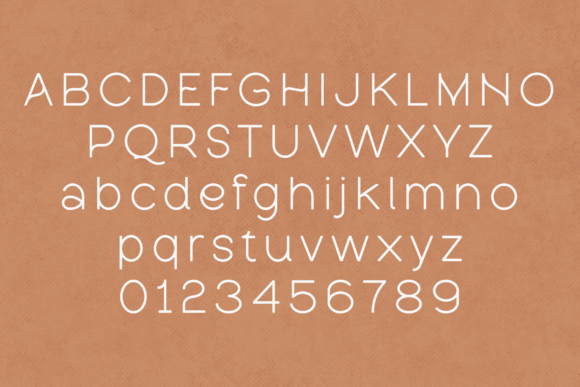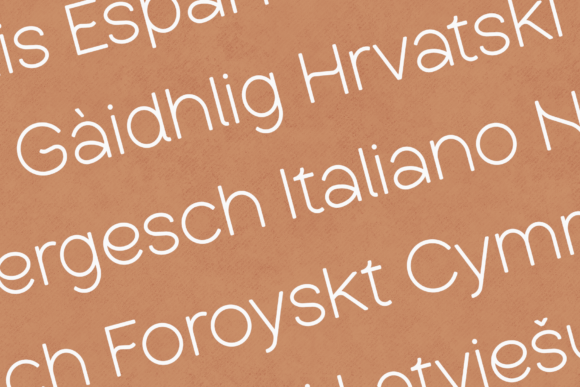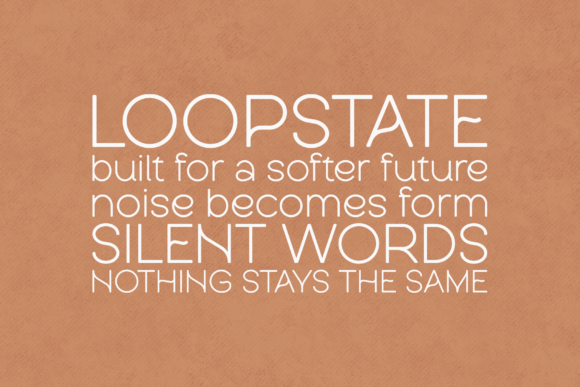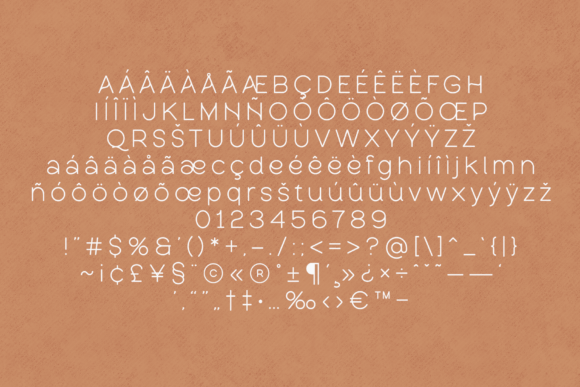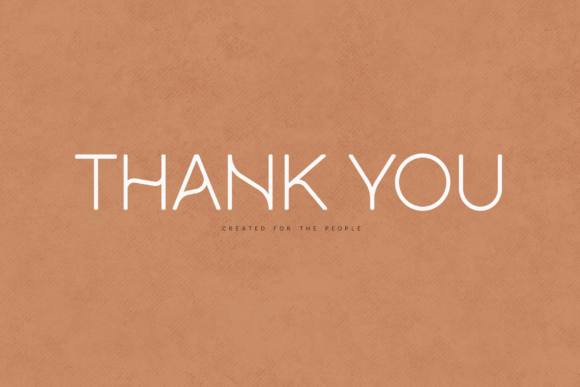
Introduction to Luminova Font
Have you ever been stuck on a creative project, staring at a blank page, and desperately searching for that perfect font to bring your vision to life? That’s exactly where the Luminova Font comes in – a game-changer for designers looking to elevate their work with a touch of sophistication and elegance.
As a valuable design resource, Luminova Font offers a high-quality solution for those seeking a clean and modern aesthetic. Its soft curves and balanced minimal forms make it an excellent choice for contemporary design environments where clarity and personality need to coexist. Whether you’re working on a branding project, modern interface, or editorial layout, Luminova Font is sure to make your creative project shine.
Key Features of Luminova Font
- High-quality, vector-based font design, ideal for use in various creative projects.
- Comes with a transparent background, allowing for seamless integration into any design.
- Includes a large character set, covering multiple languages and providing a comprehensive font solution.
- Designed to be scalable, with high resolution support up to 300 DPI, ensuring crisp and clear text at any size.
- Perfect for use in various design applications, from digital graphics to print materials, and more.
Honest Review: Luminova Font
As a designer, I’m always on the lookout for high-quality design resources to enhance my creative projects. Recently, I had the opportunity to try out the Luminova Font, and I must say, it’s been a game-changer for me.
What works well: ✨ The font is incredibly versatile, with a range of styles that can be used for both modern and classic designs. The transparent background feature is also a huge plus, allowing me to easily overlay text on images and videos.
- High-quality design that looks great on both web and print
- Transparent background feature for easy text overlay
- Range of styles to suit different design needs
Overall impression: The Luminova Font is a solid addition to any designer’s toolkit. While there are some limitations, the benefits far outweigh the drawbacks. If you’re looking for a high-quality, free design resource, the Luminova Font is definitely worth checking out.
How to Use Luminova Font
Tips for Getting the Most Out of Luminova Font
To get the most out of the Luminova Font, experiment with different font sizes, colors, and styles to find the perfect combination for your design. You can also use the font in conjunction with other design resources to create a cohesive and visually appealing design.
Common Use Cases for Luminova Font
The Luminova Font is perfect for a variety of creative projects, including logos, brochures, business cards, and presentations. Its high-quality design and transparent background make it a versatile and useful design resource.